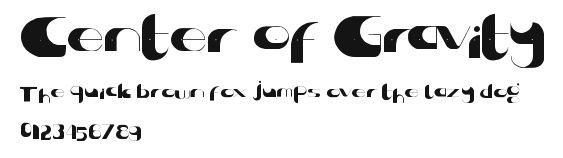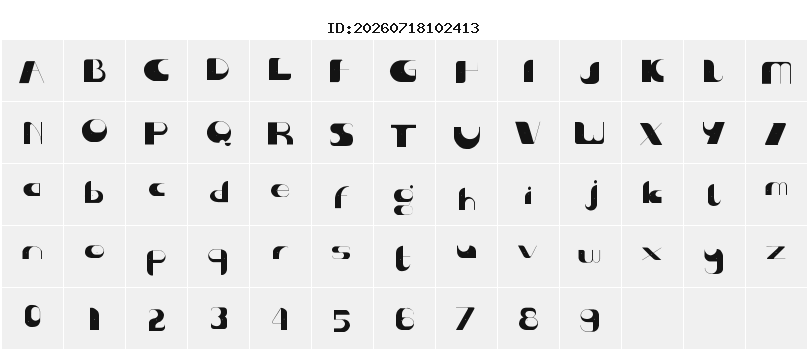
Center of Gravity Preview
• Font Name: Center of Gravity
About Center of Gravity.ttf
Center of Gravity.ttf is a modern, elegant sans-serif font designed for ultimate readability and visual harmony. Perfect for branding, headlines, web design, and print materials.